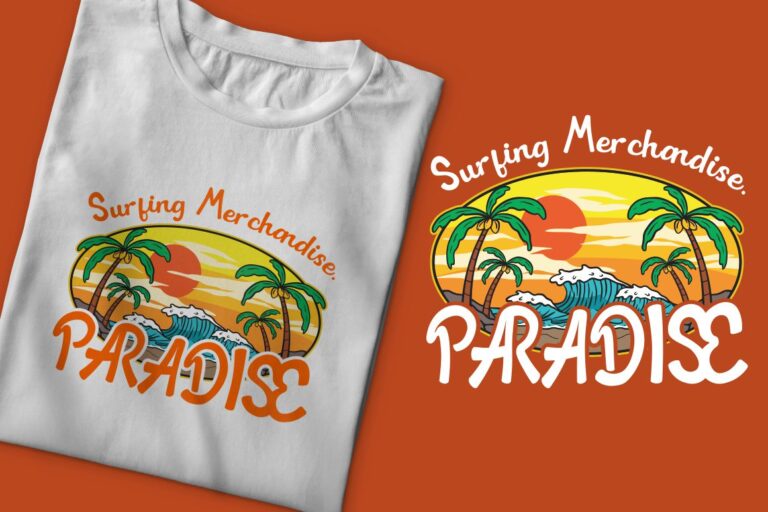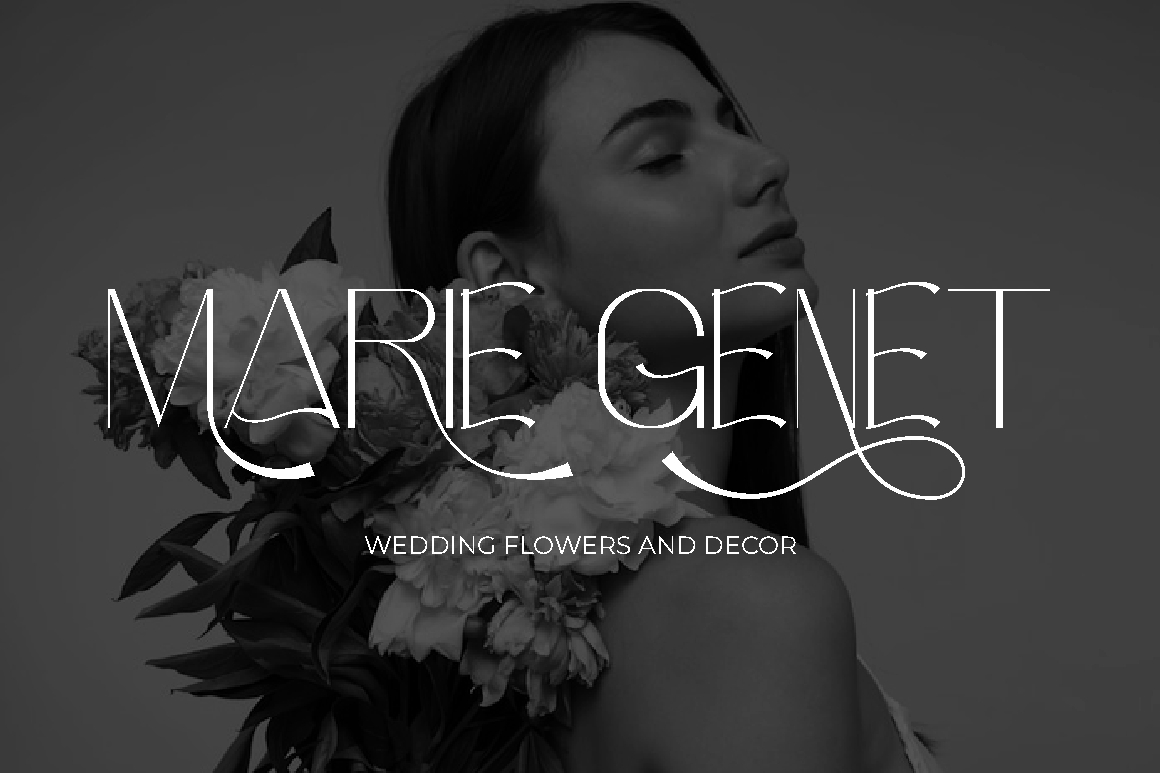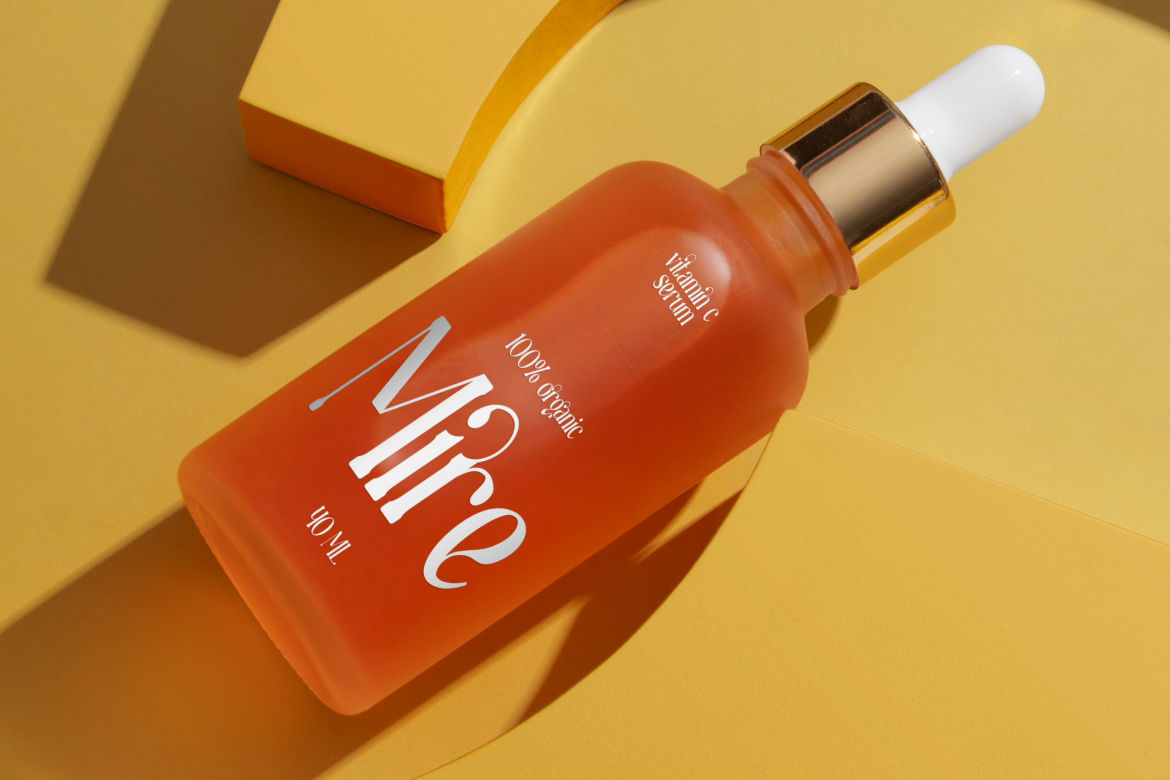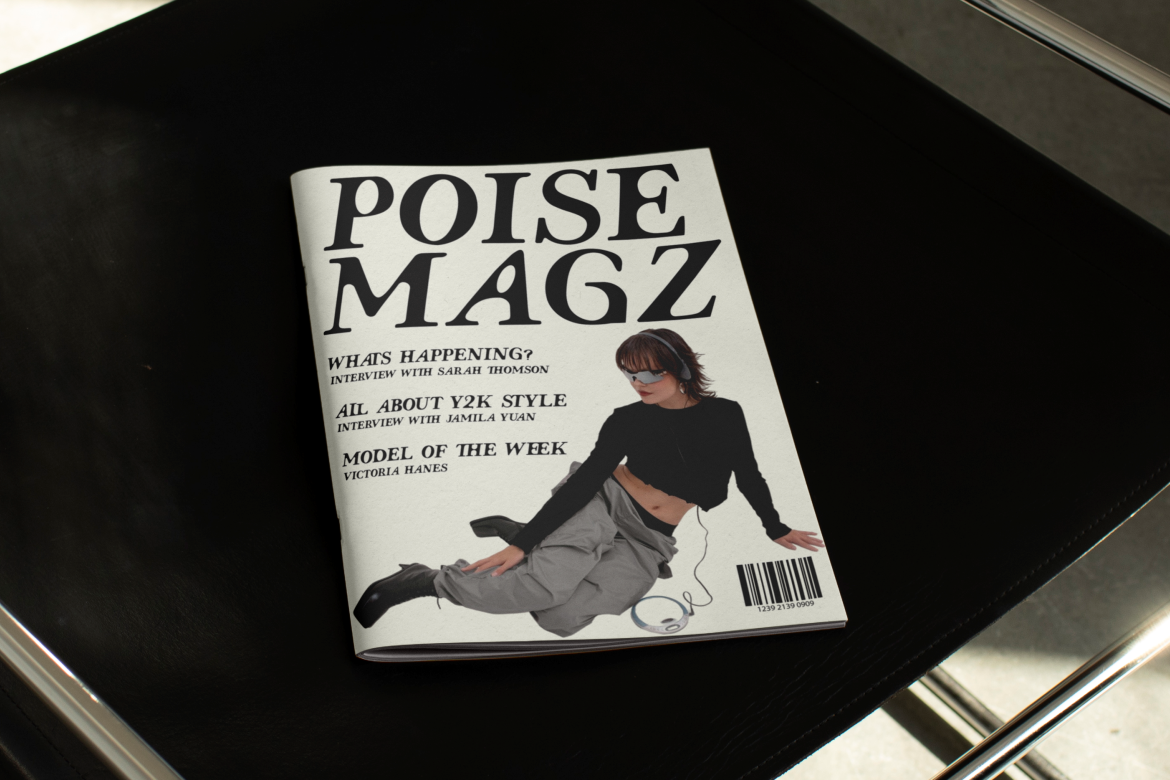
Fashion Industry Fonts: 10 Elegant Typography Picks for Branding
Typography in the fashion world goes beyond mere aesthetics, it becomes a vital tool for building brand identity and communicating exclusivity. When choosing fashion industry fonts, designers seek typefaces that blend elegance, modernity, and visual harmony. The right style transforms a logo, elevates packaging, and gives advertising campaigns a polished, professional edge. PutraCetol Studio’s Fashion Font collection embodies this philosophy, showcasing ten standout choices that inspire luxury and balance. Let’s dive into what makes each font special, how to use them wisely, and when they shine—and when they might fall flat.
1. Sansed Display
A clean, minimalist sans serif, Sansed Display offers wide spacing and sleek letterforms, ideal for fashion headlines or editorial branding. It conveys refined simplicity but may feel too understated for bold, decorative statements.
2. Luxerna Display
Luxerna Display plays with heightened proportions and subtle sharp edges, evoking upscale minimalism. It works beautifully in logo design and clean ads, but its exaggerated forms can look awkward in tight layouts.
3. Evoke Italic
Evoke Italic adds a graceful, handwritten flair to the mix, ideal for feminine labels or promotions. The slanted style brings personality, though it may lose clarity at smaller sizes or in long lines.
4. Gilded Glint
With refined serifs and high contrast strokes, Gilded Glint channels luxury and sophistication. It looks stunning on packaging or invitations, yet may appear overly ornate in casual brand projects.
5. Rhenia Elegant Display
Rhenia combines soft curves with vertical stress, bridging modern and classic aesthetics. It’s great for lookbooks and luxurious web headers, though it may feel too delicate at very small sizes.
6. Sans Fierro
Sans Fierro blends geometric precision with subtle humanistic details. It’s versatile for editorial spreads and fashion websites, but its neutrality may underplay bold brand messages.
7. Lucky Shirt
Capitalizing on retro charm, this font suits casual and streetwear branding. Its friendly curves and vintage energy give it personality, but it likely won’t work in high-end luxury settings.
8. Sunshine Mind
Sunshine Mind’s rounded brush strokes offer a relaxed, artisanal vibe. Ideal for lifestyle trends or cheerful campaigns, the softness may feel too informal for classic-style brands.
9. De Rolande
A polished serif that carries both elegance and resilience, De Rolande adapts well to fashion editorials and labels. Its classic look stands out, though the serif details require careful spacing in tight layouts.
10. Vanetta
Vanetta merges modern sans lines with refined curves. It offers a neutral yet high-end appeal that complements luxury branding. However, its simplicity may make it less distinct for highly stylized campaigns.
Choosing the Right Font
Selecting among these fashion industry fonts requires focusing on context and brand essence. For logos and primary titles, serif and display fonts like Gilded Glint or De Rolande create a high-end presence. Editorial and web headers benefit from clean sans serifs like Luxerna or Sansed Display. Casual lines, like Lucky Shirt or Sunshine Mind, suit lifestyle or streetwear aesthetics. Budget for pairings that balance uniqueness and readability by combining one standout font with a neutral partner for body text.
When Typography Becomes Strategy
In the fashion industry, typography isn’t decoration, it’s communication. A luxurious serif fonts conveys trust and tradition, while minimalist styles signal modernity and clean aesthetics. Consider packaging: ornate fonts suggest premium quality; open sans fonts convey friendly, everyday tone. Be mindful of cultural variation: floral script may resonate in feminine markets, while ultra-minimalist fonts fit unisex or global collections. Test fonts in mockups, pairing them with product images and packaging designs to ensure coherence and appeal.